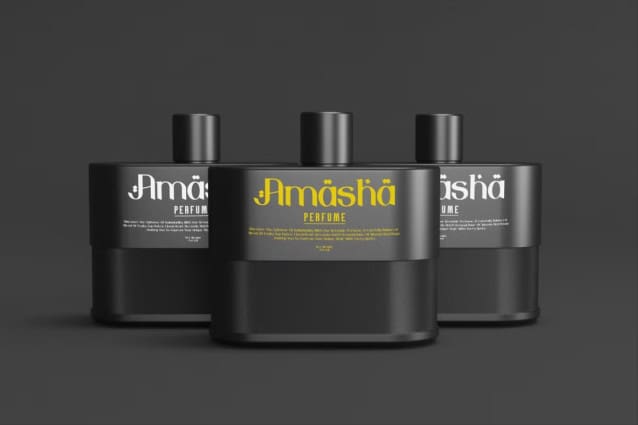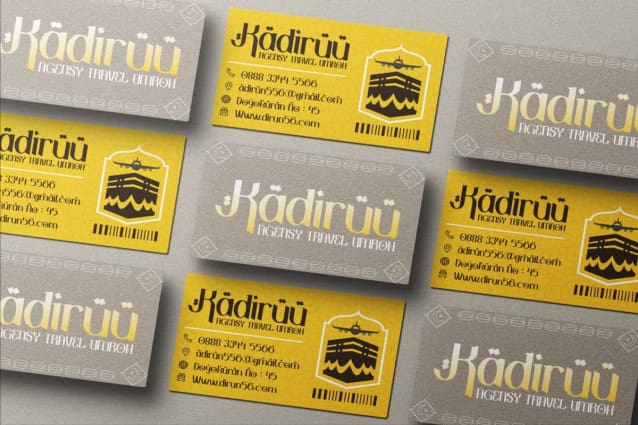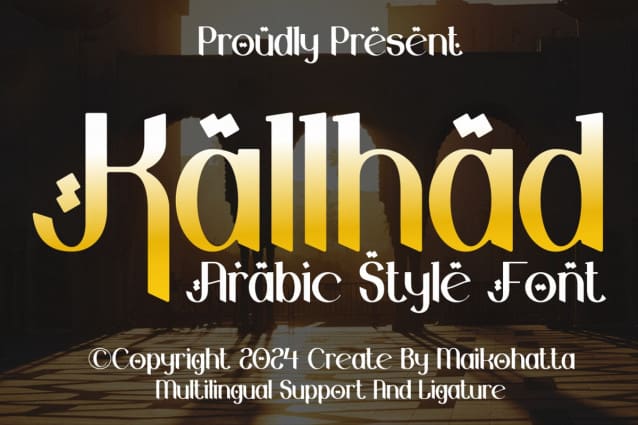
Kallhad Arabic Font
Kallhad Arabic Font is a bold and authentic display font. The font is suitable for any branding project like logo, Template Design, esport, and many more. outstanding in a wide range of contexts.